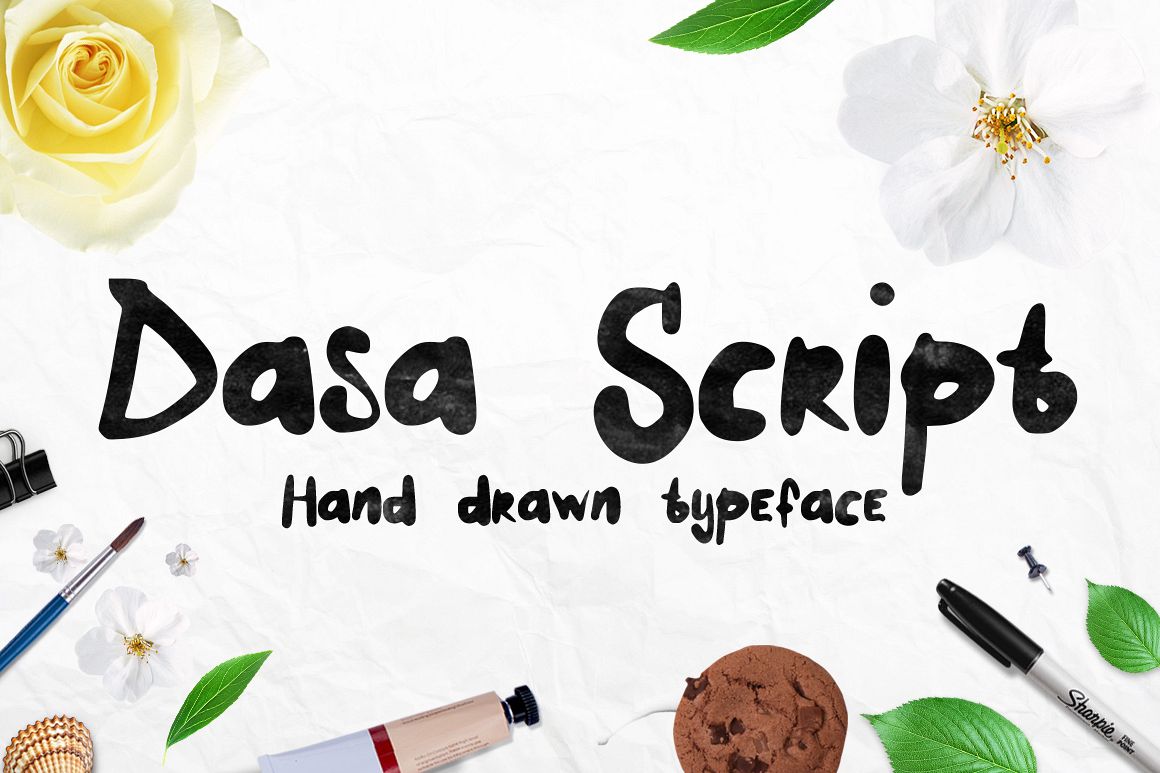
Dasa script
Dasa Script is a hand drawn brush font. Dasa script is guaranteed to give your text a personal, custom-made feel. Useable for your design projects - greeting cards, magazine covers, typograpy posters, branding or logo.
Uppercase & lowercase
Punctuation & numerals